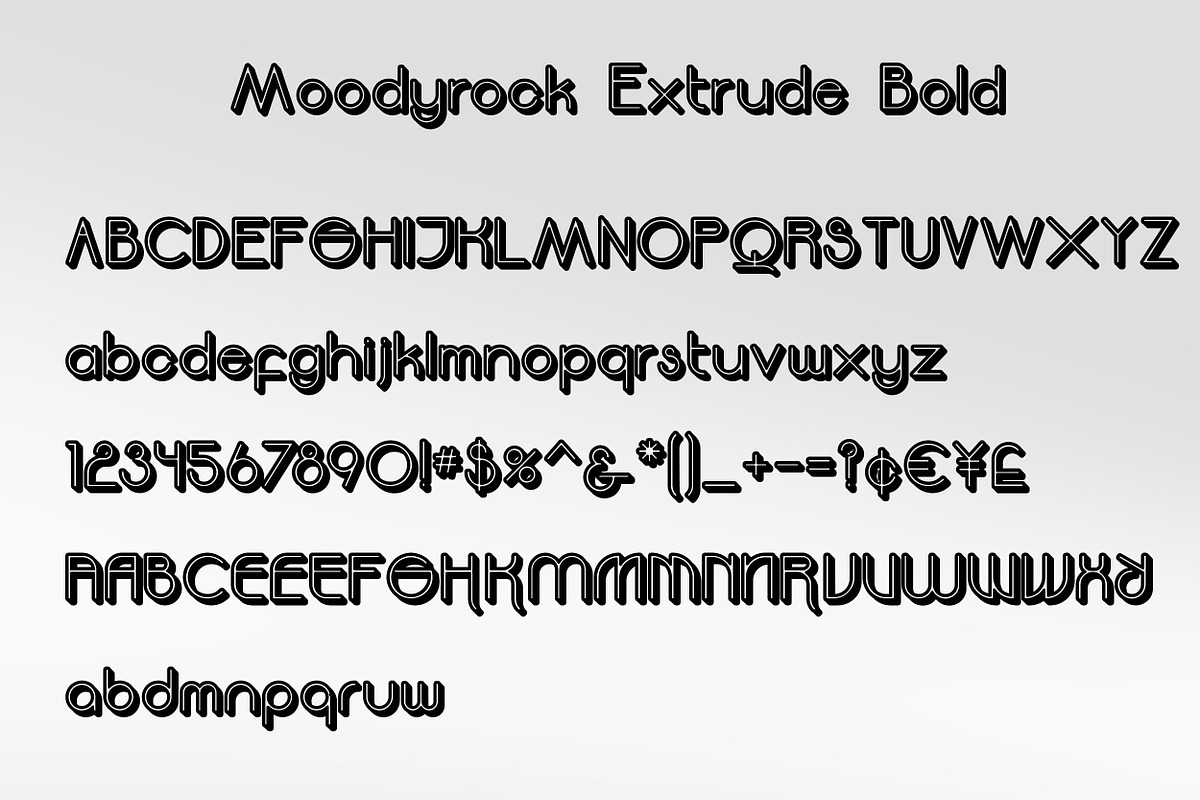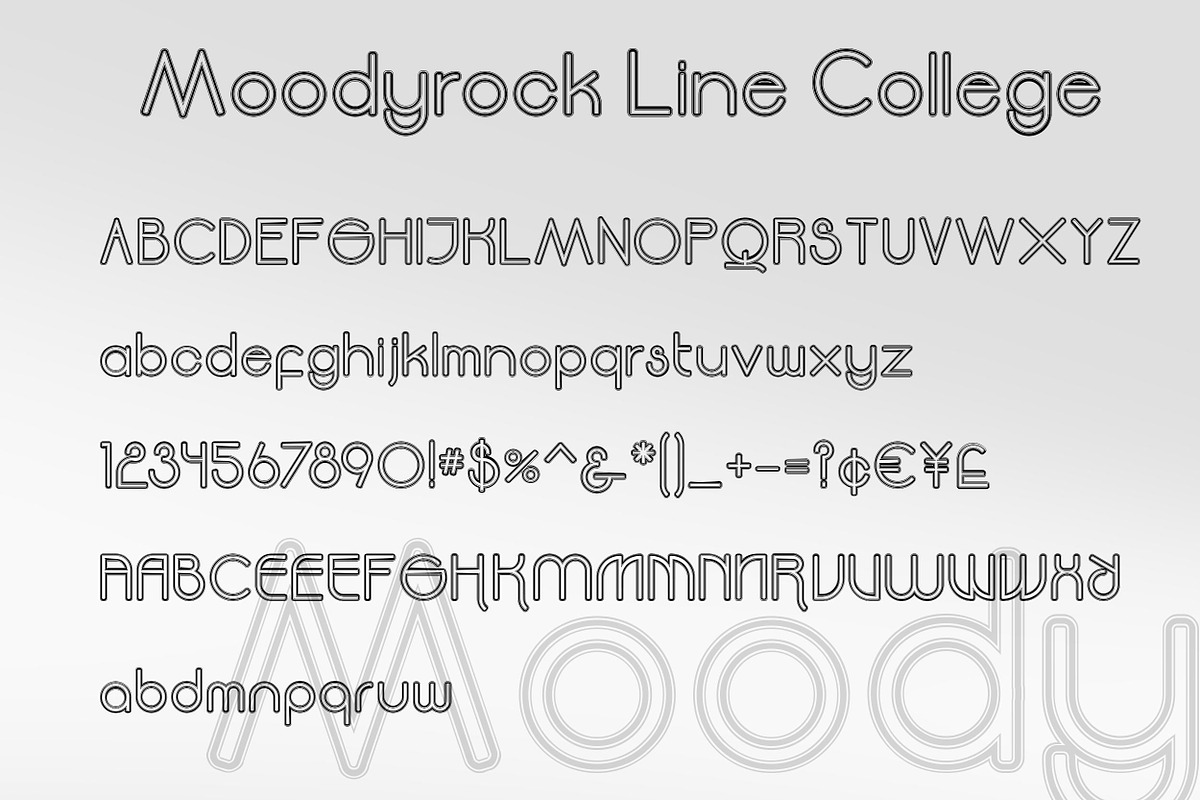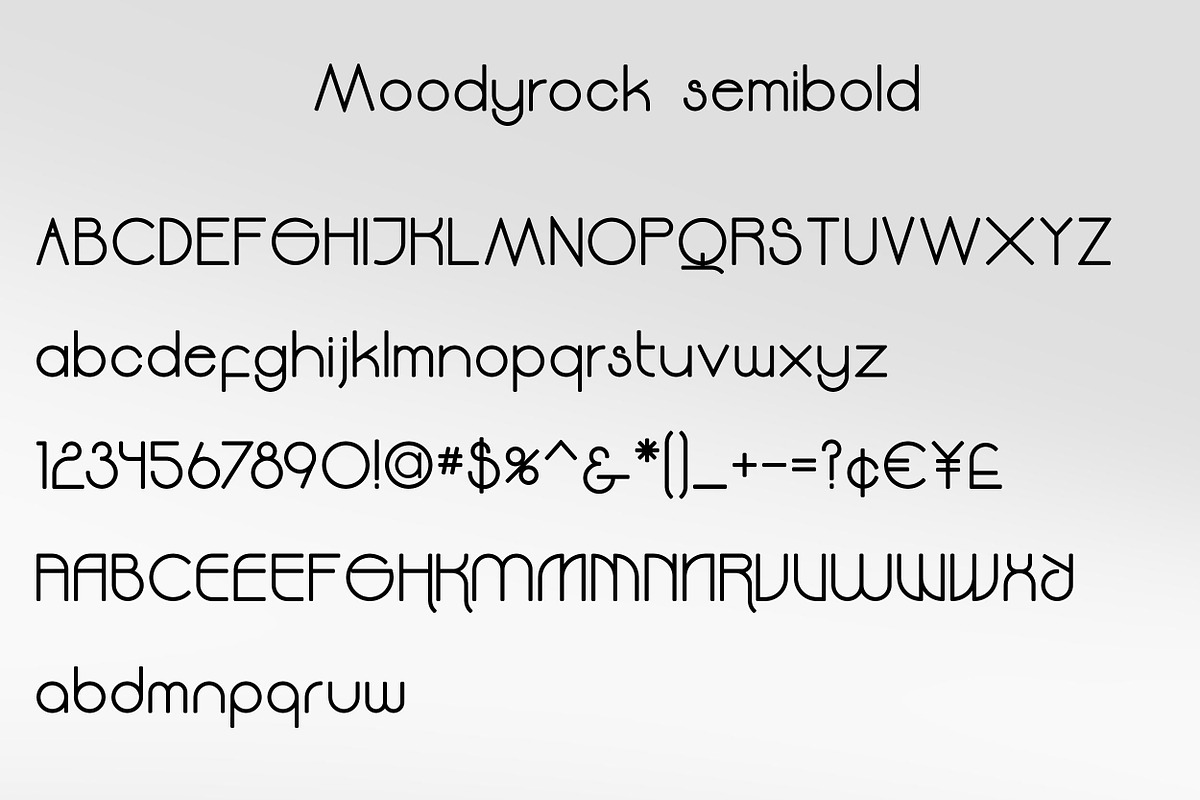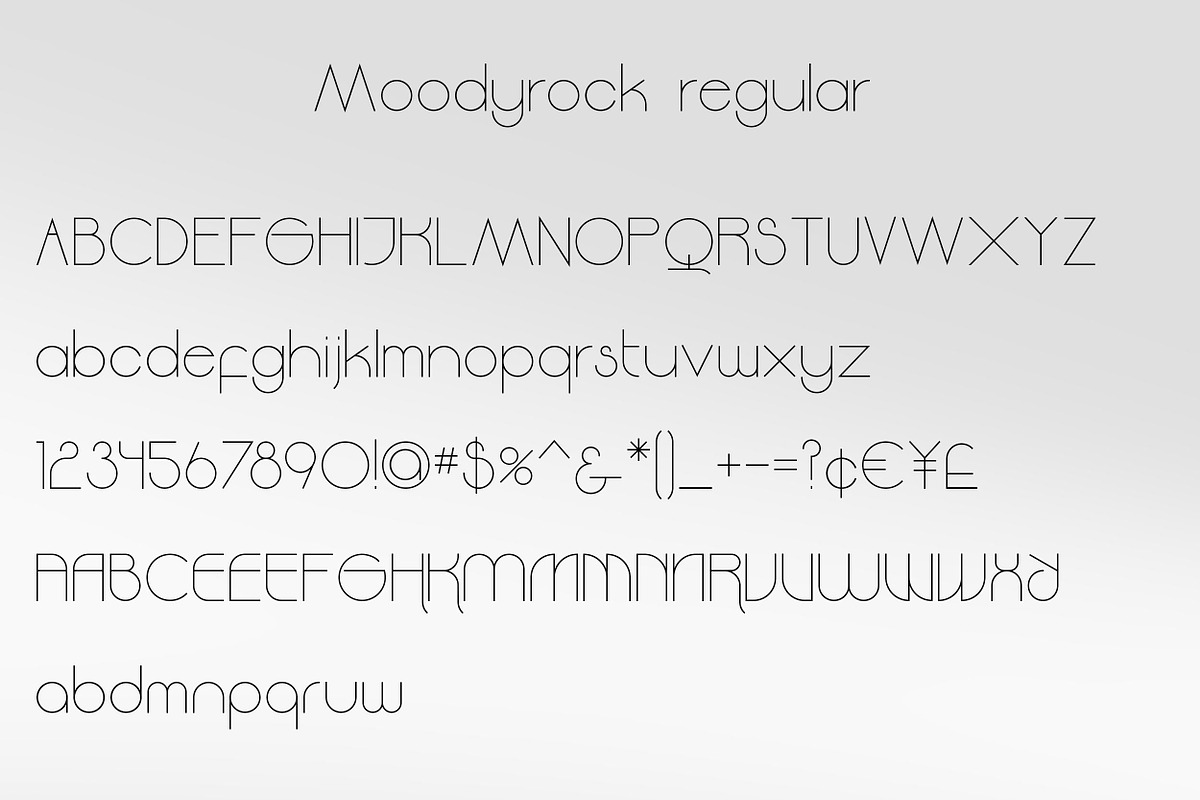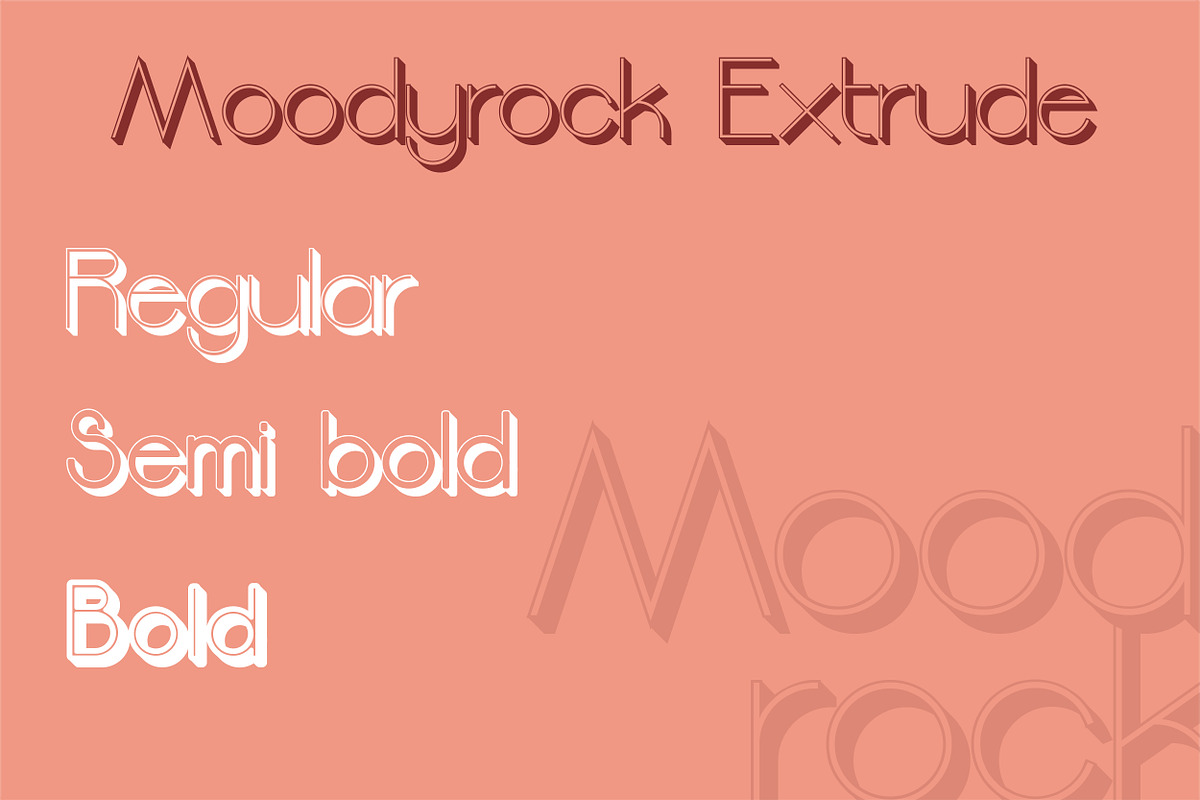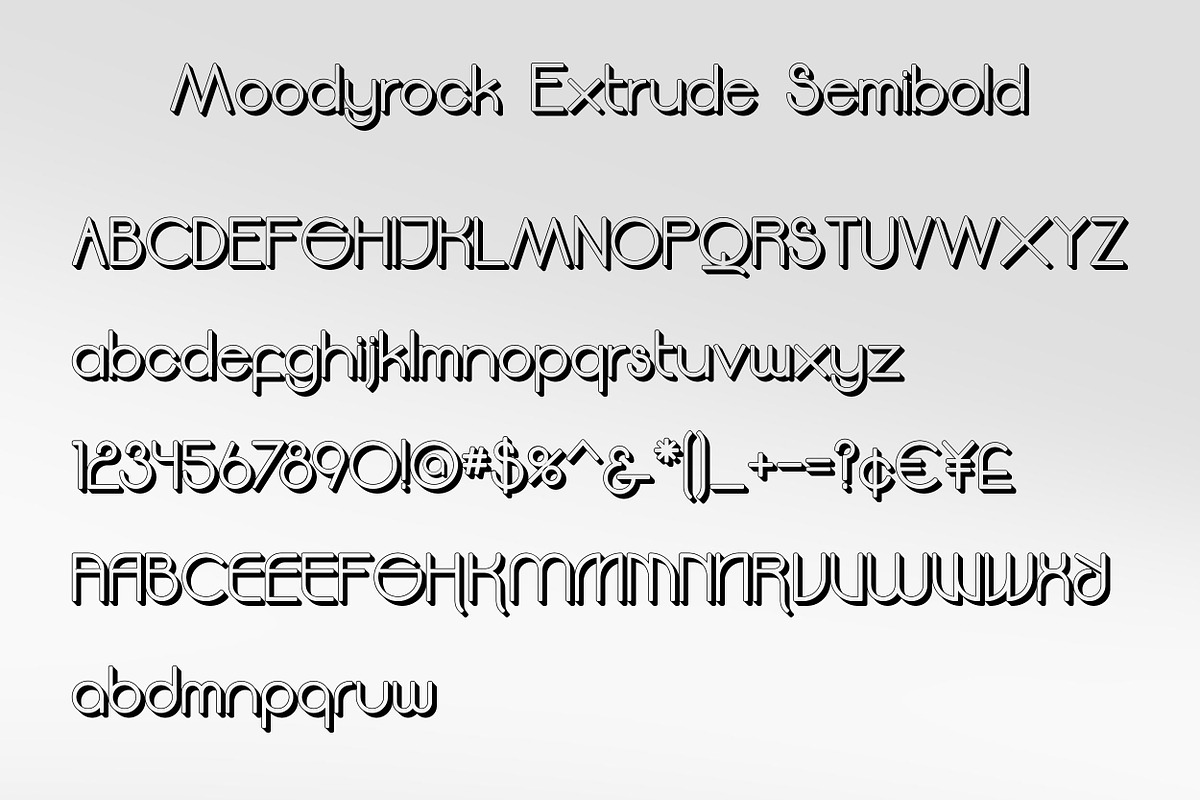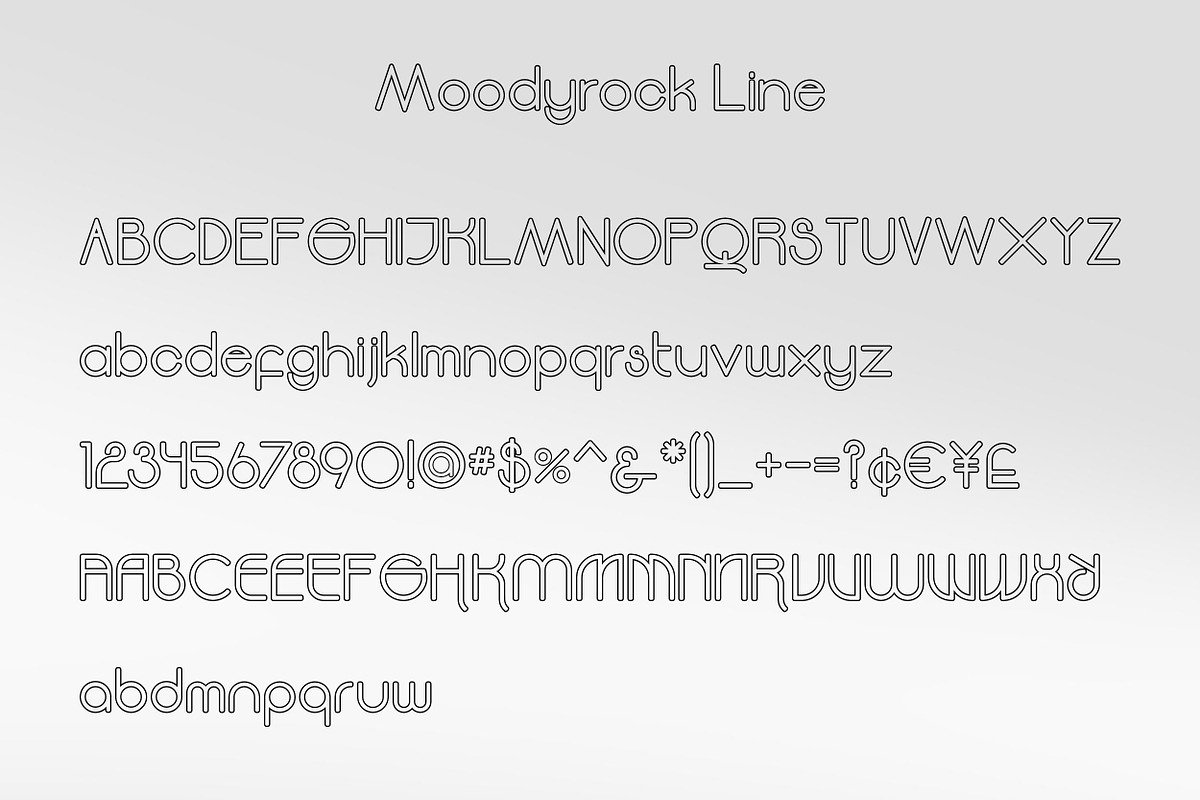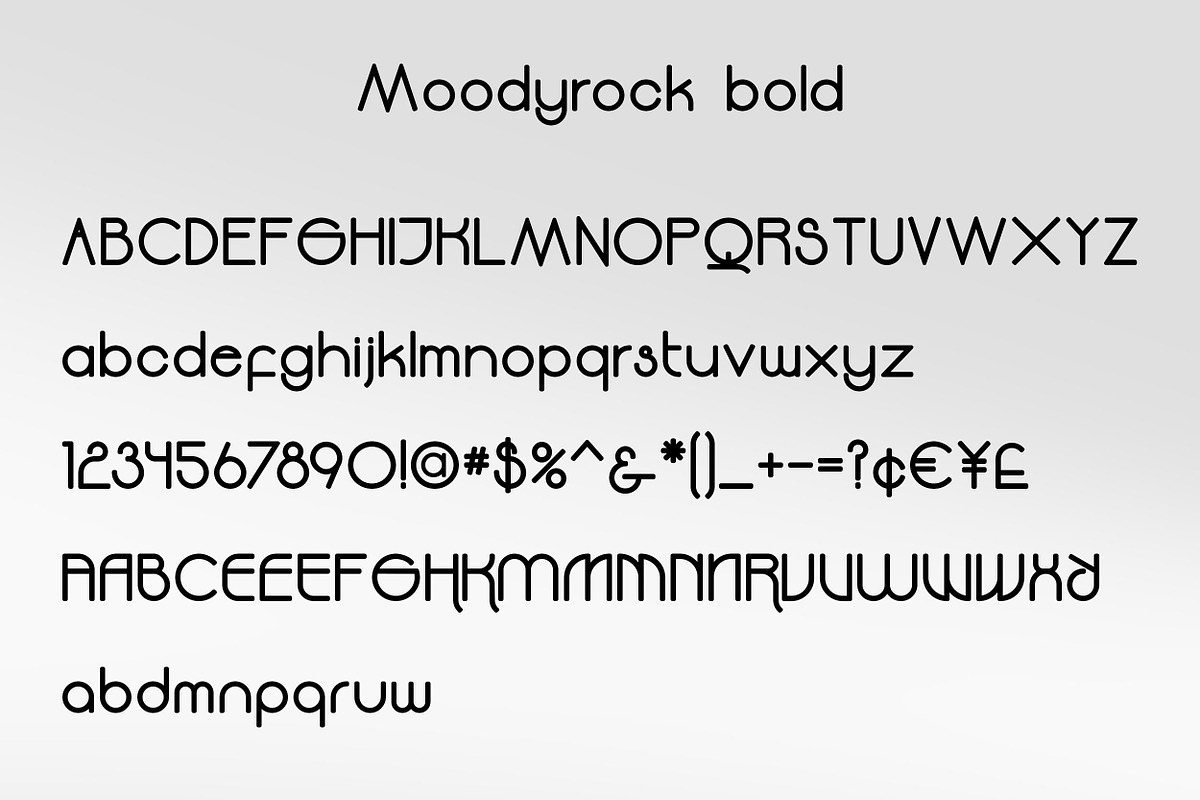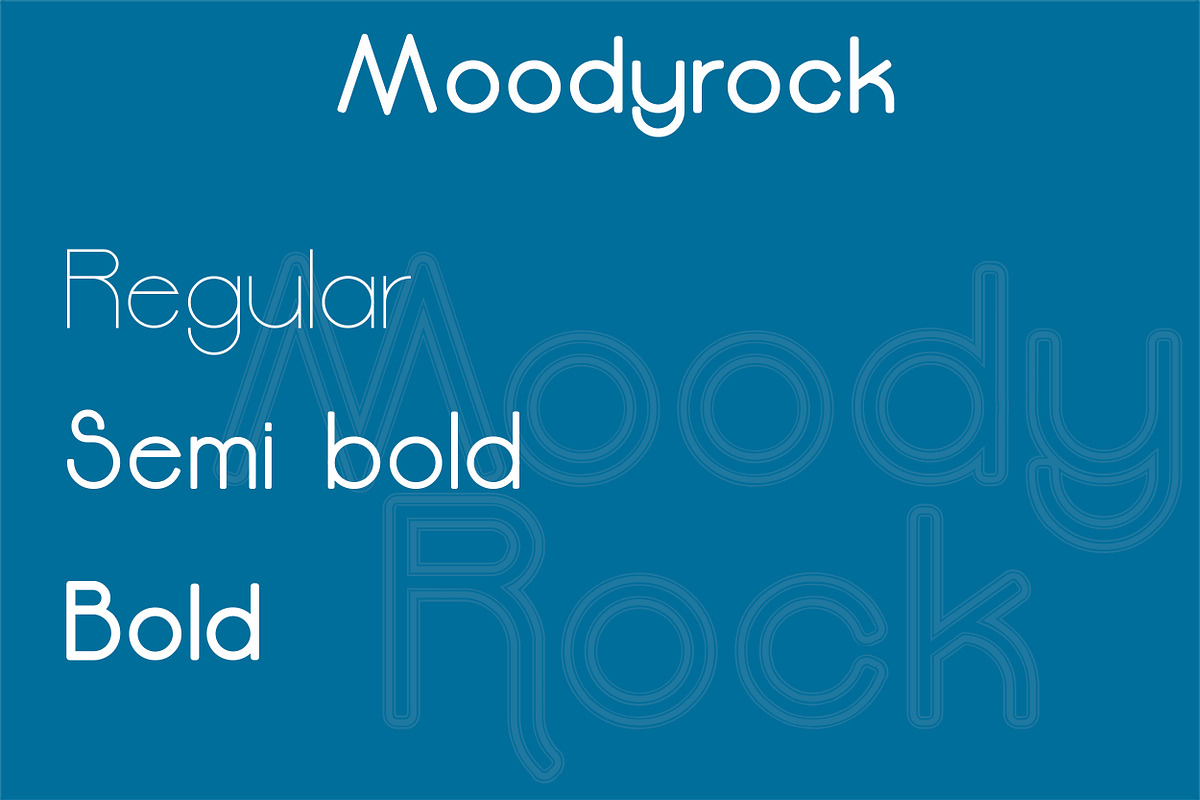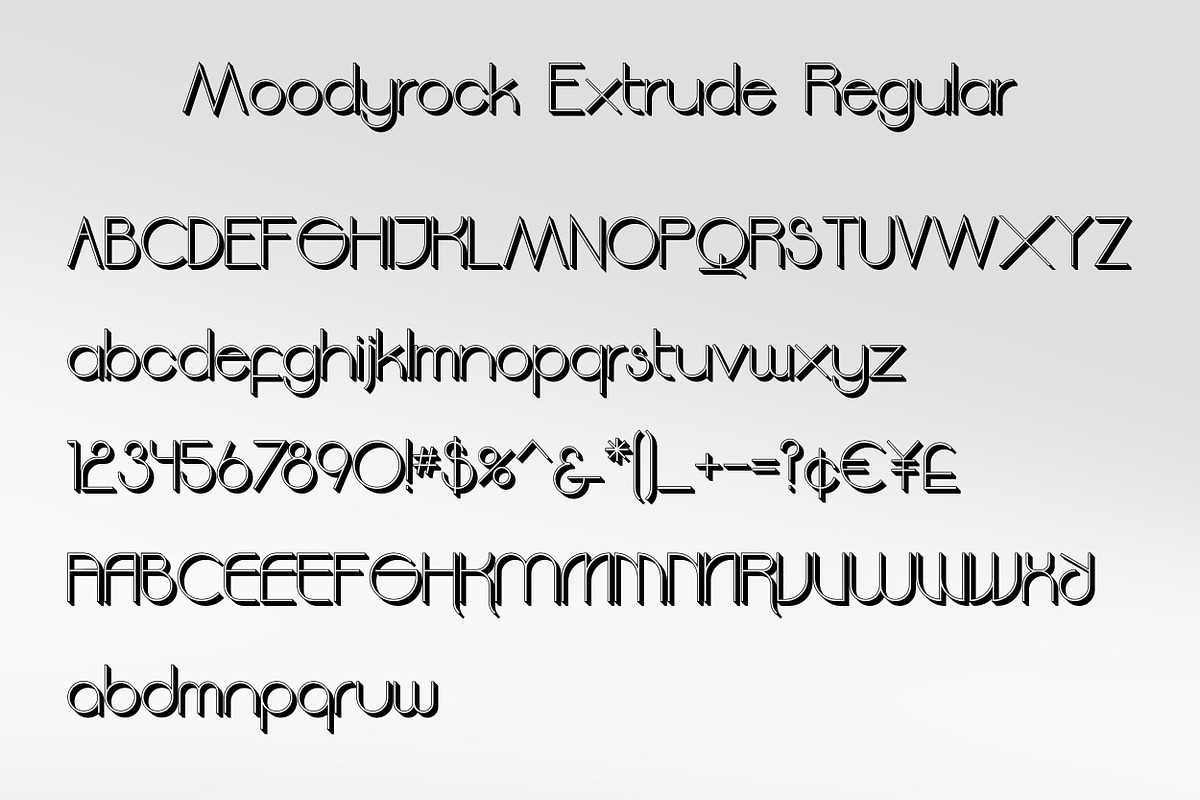
MOODYROCK
Moodyrock is a pretty gorgeous sans serif font that will Easily Become a modern typeface in your catalog. It features stunning clean lines, excellent shapes, and some style weigh to suit every project. elegant corner from some style can be used for logo company, header of business letter and also for branding your product.